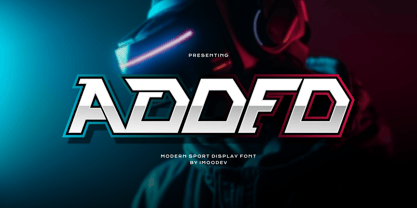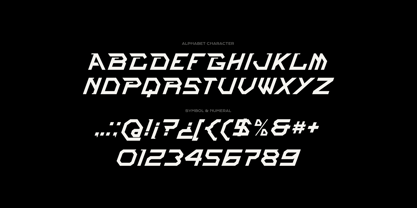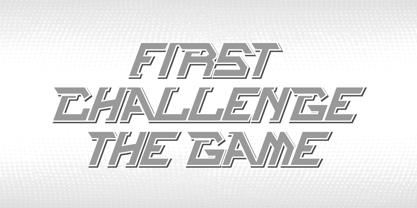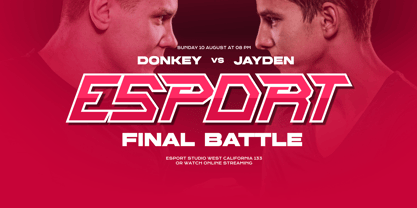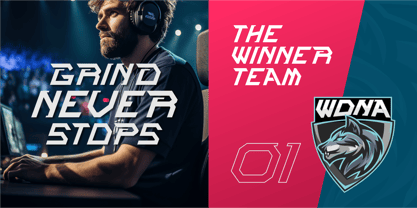
Adofo
by Imoodev
The Adofo Font Family was designed by Aulia Savira Putri and published by Imoodev. Adofo contains 1 styles. More about this family
Adofo is a modern sports diplay font with letters style is slanted forward, giving it a sense of constant motion and aggression like it's racing ahead.
The sharp corners, broken line segments, and thick strokes scream tech, cyberpunk, mech, gaming, e-sports, and futuristic branding. Suitable for film like it battle robots, space tournaments, racing games, sports titles, running matches, cycling, automotive game logos, poster, jersey design, sport-slogan, any writing which needs a strong-bold vibe, and any type of advertising purpose.
Designers: Aulia Savira Putri
Foundry: Imoodev